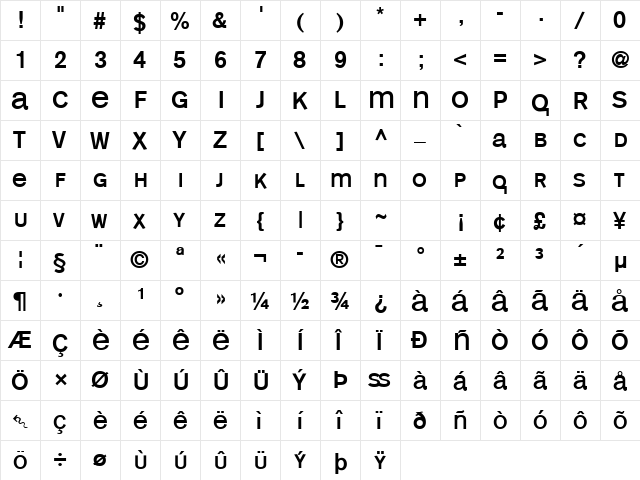
MonoAlphabet Regular Font Preview
MonoAlphabet Regular
Design Context for MonoAlphabet Typeface
MonoAlphabet uses fixed-width spacing throughout, giving it the structured, systematic character associated with coding environments and technical documentation.